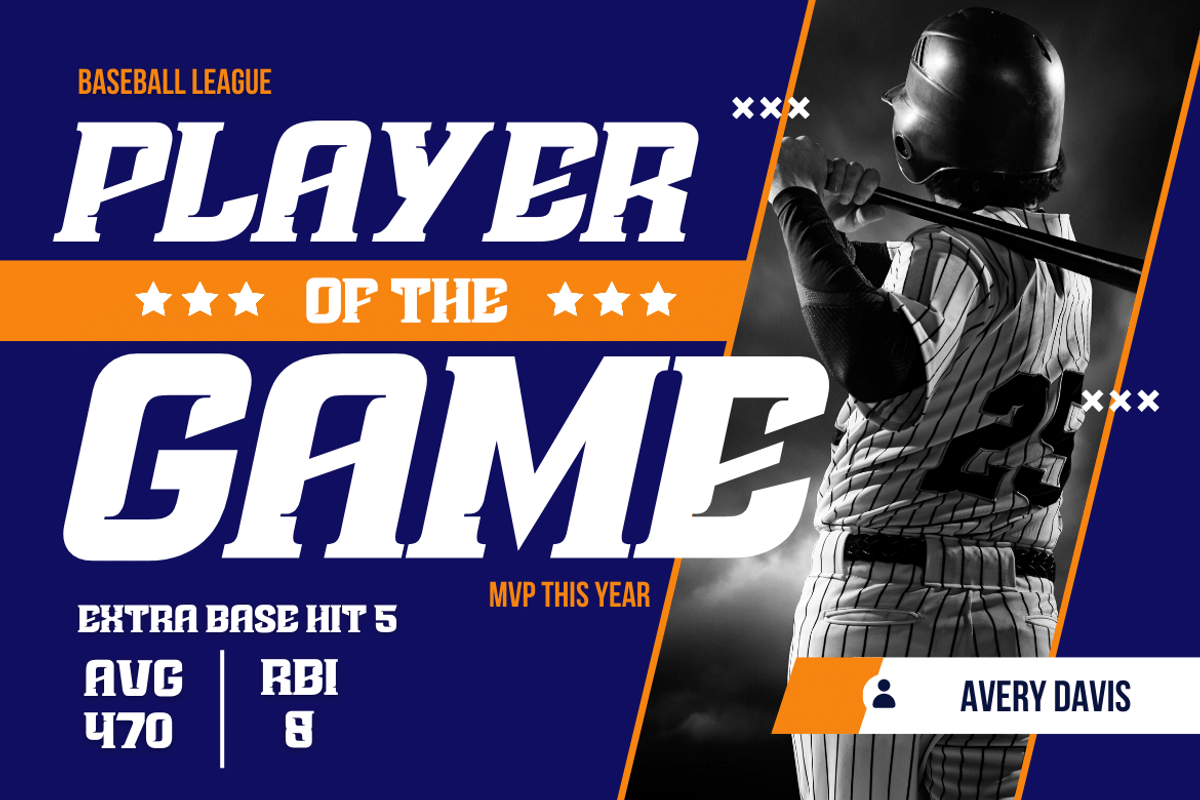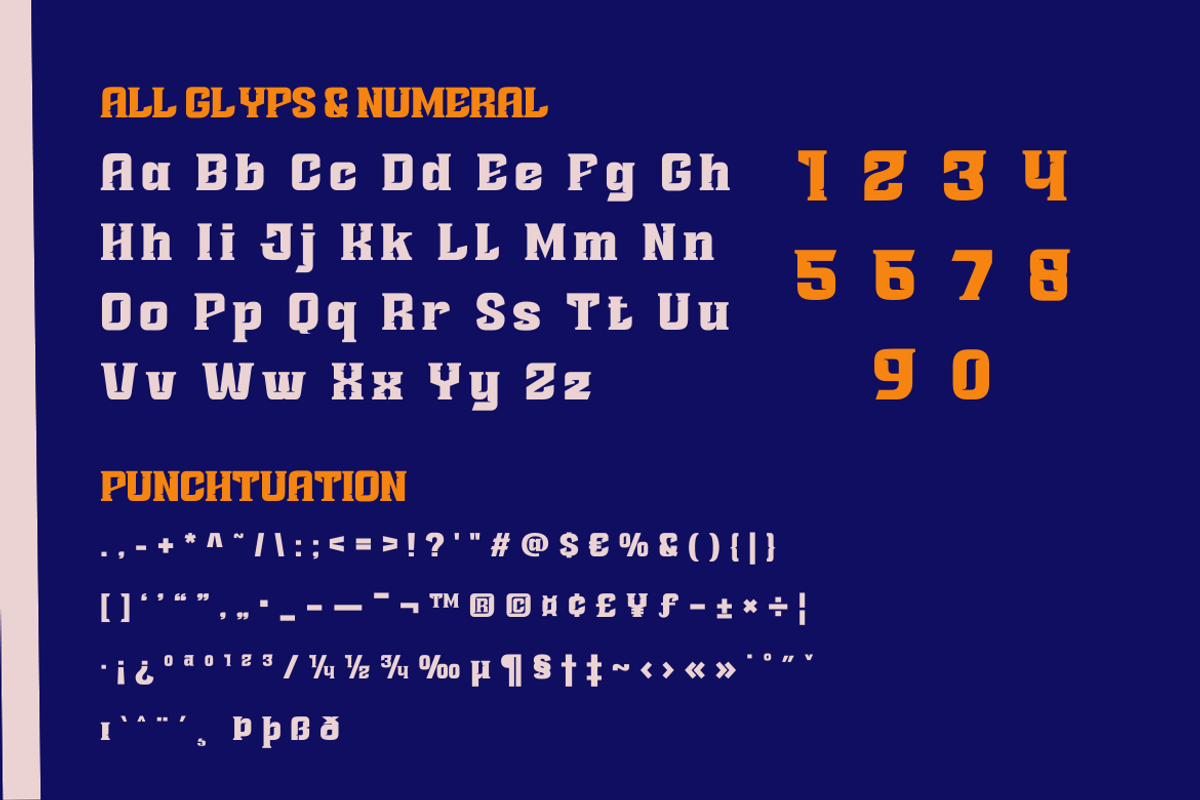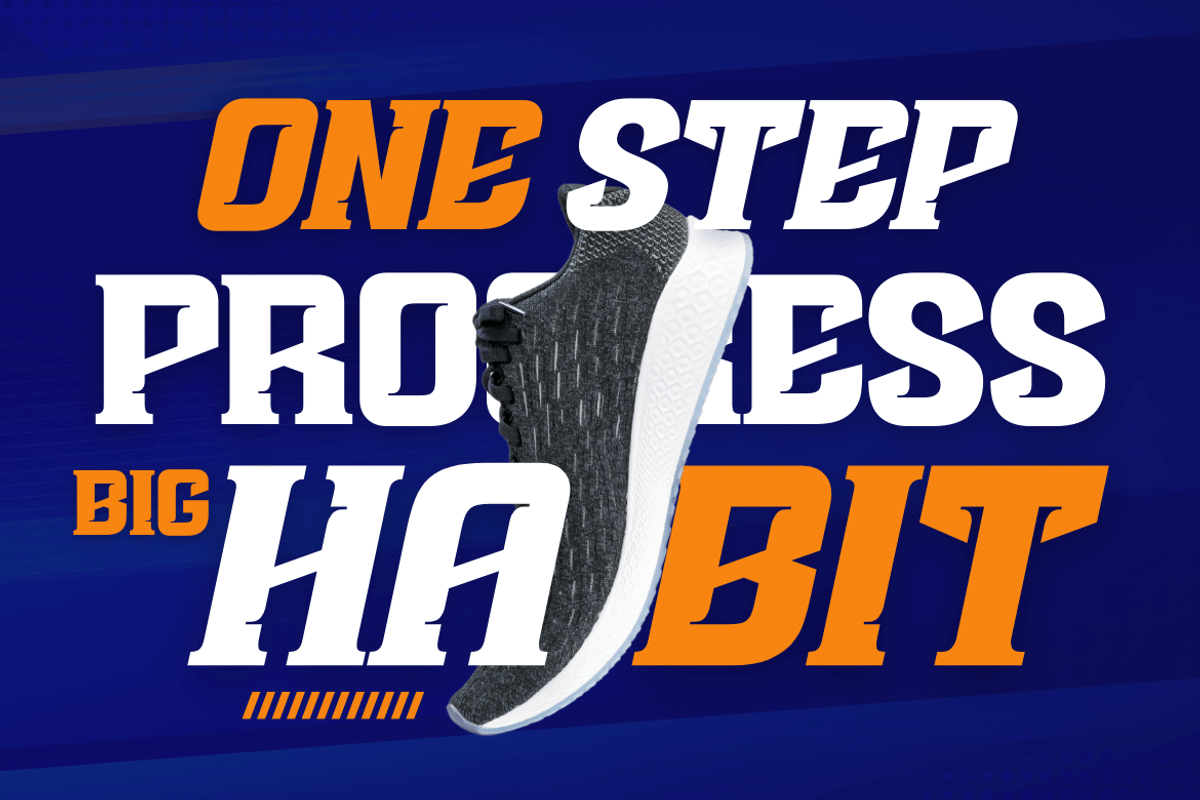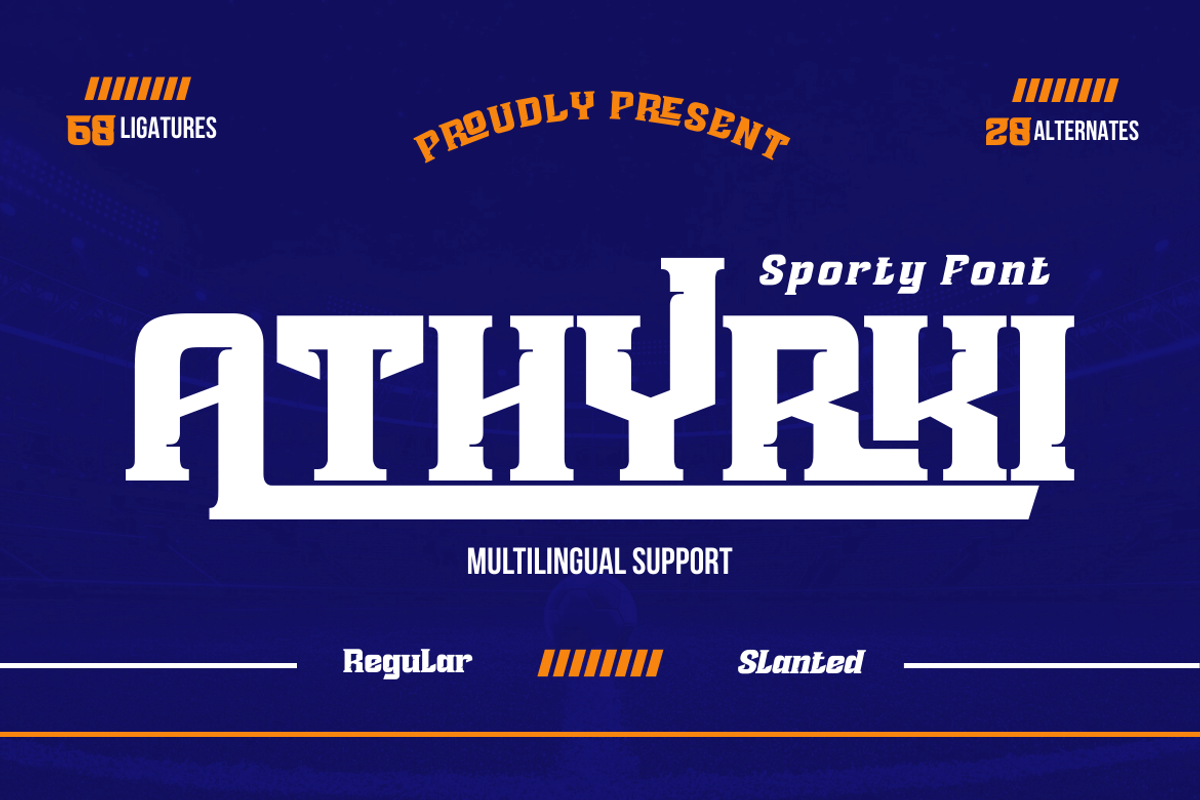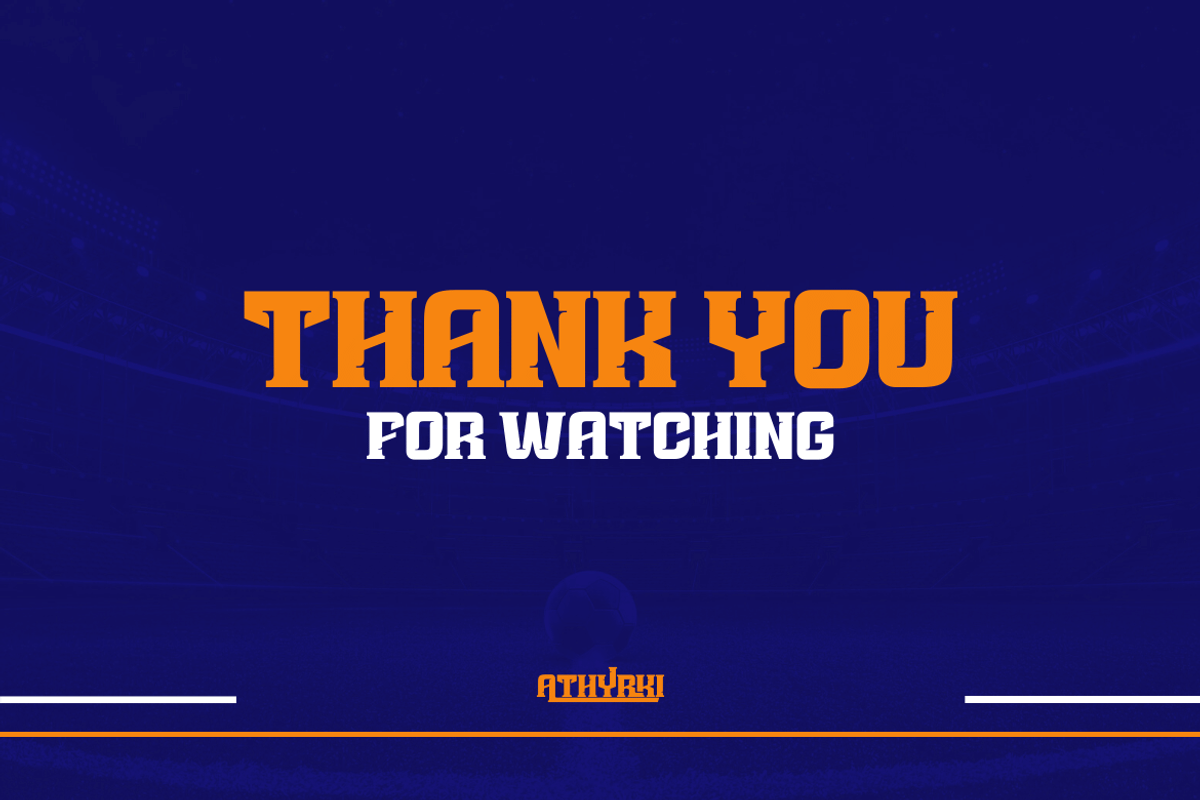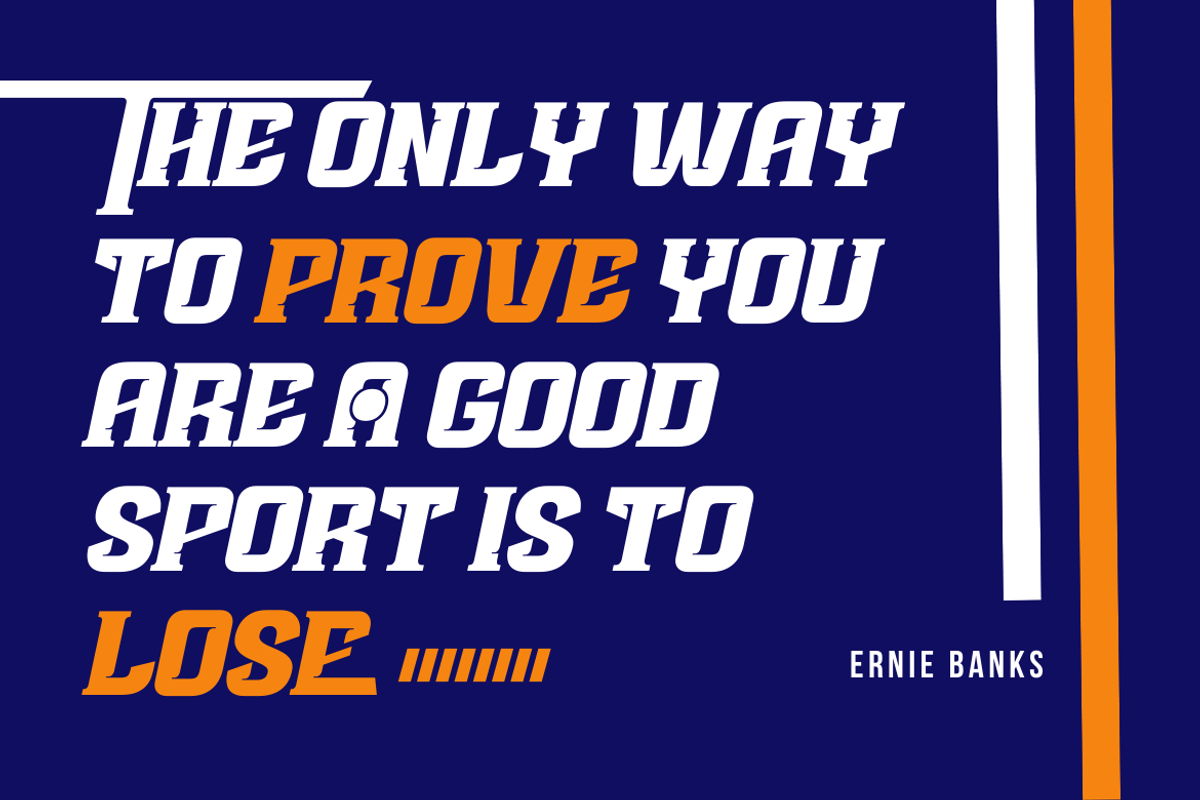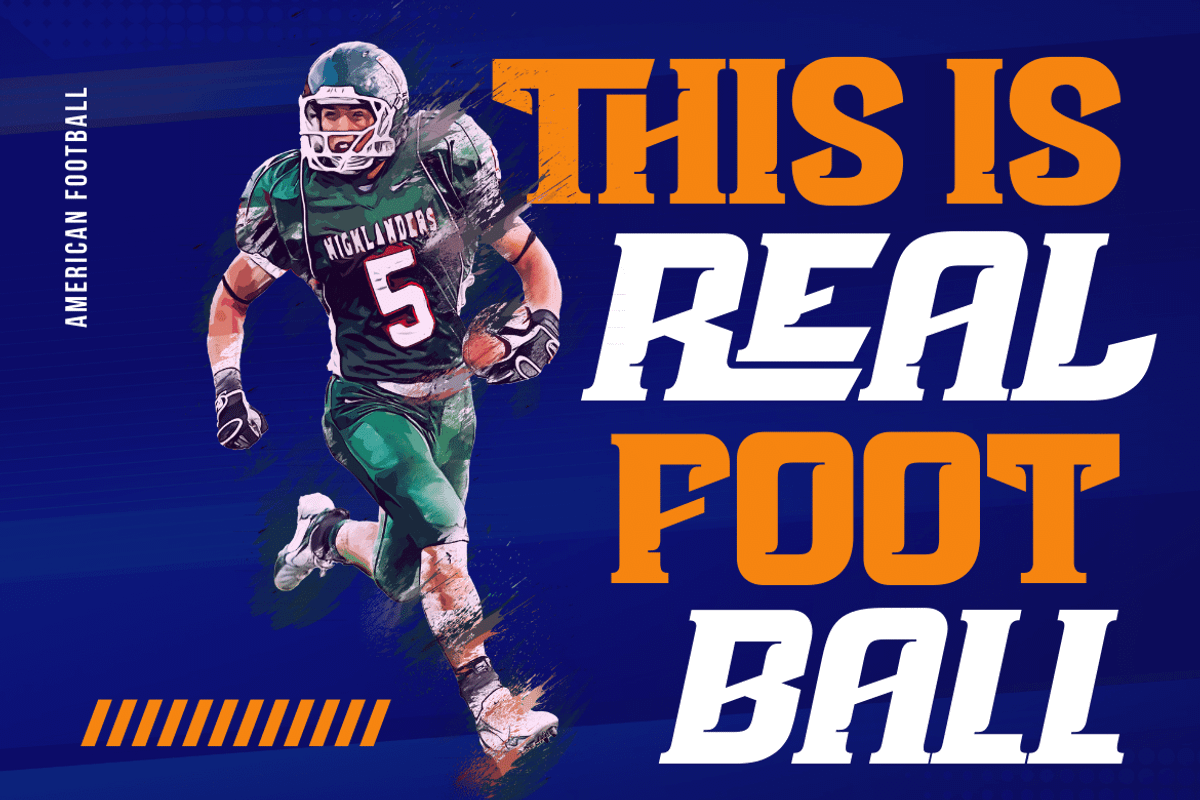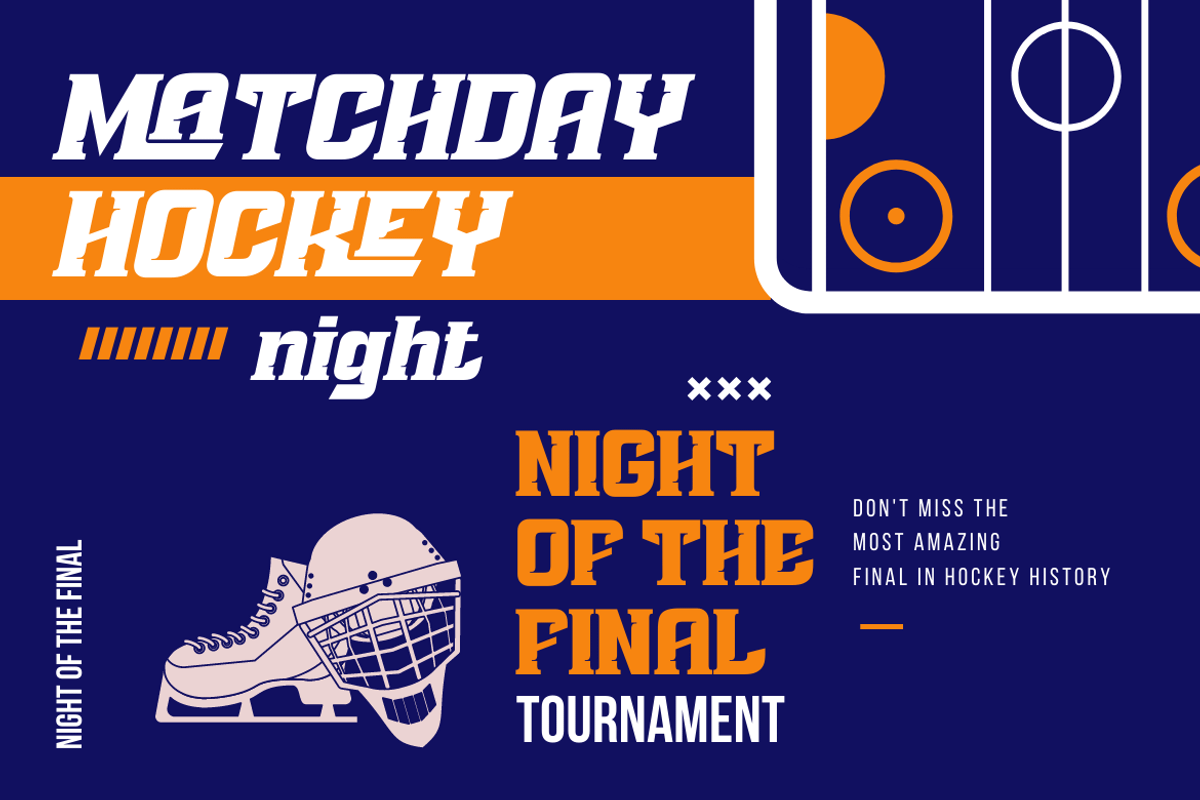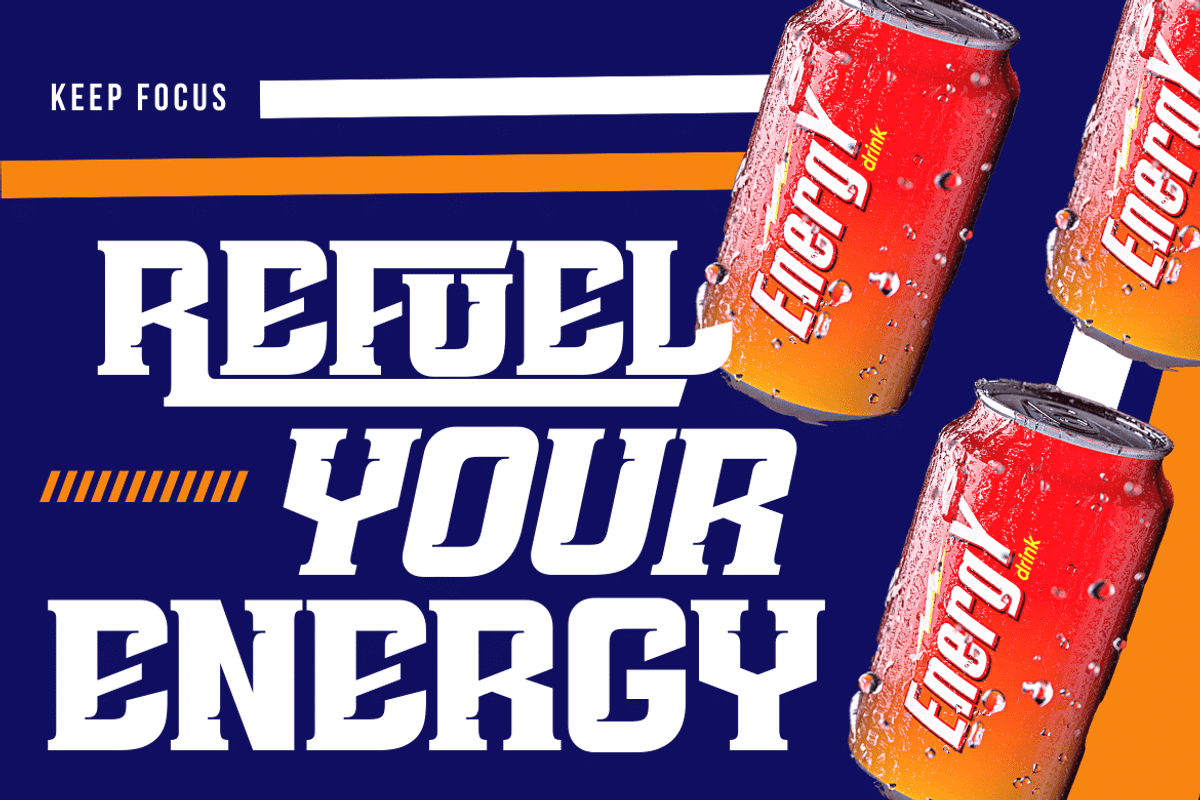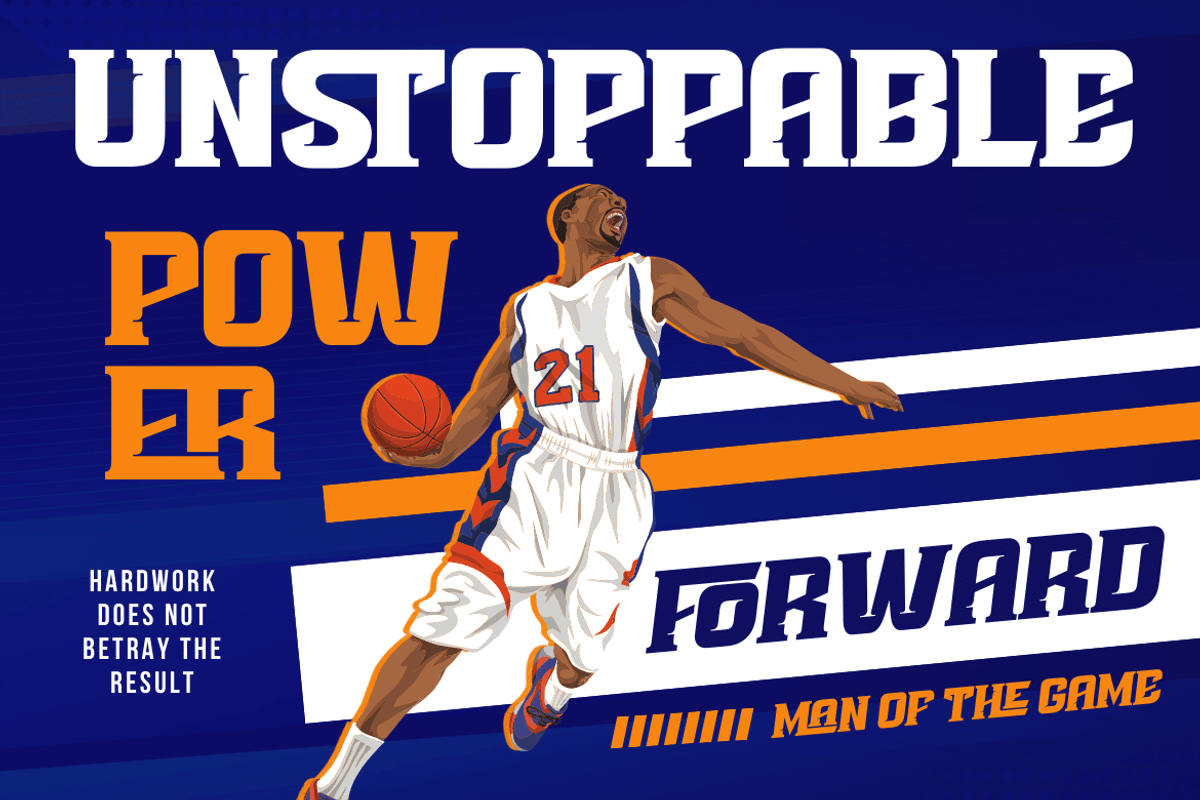
ATHYRKI | Athletic Font
ATHYRKI is a bold serif font inspired by the evolving world of sports that has recently expanded into digital verse. ATHYRKI’s round and sharp appearance represent its unified nature, equipped with different alternate and ligature features, this font displays its modern mixed style. Accented fonts with the ability to spice up your project for that extra flair to the visuals.
- Alternate, Ligature